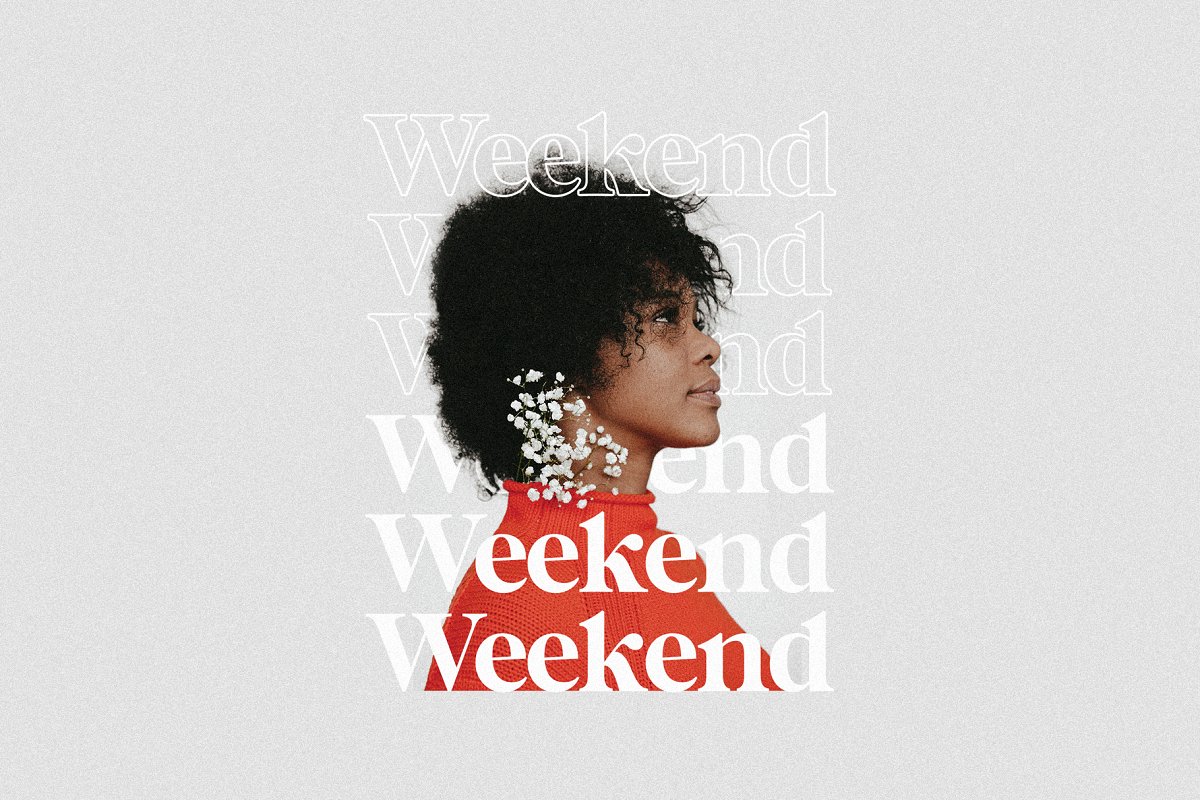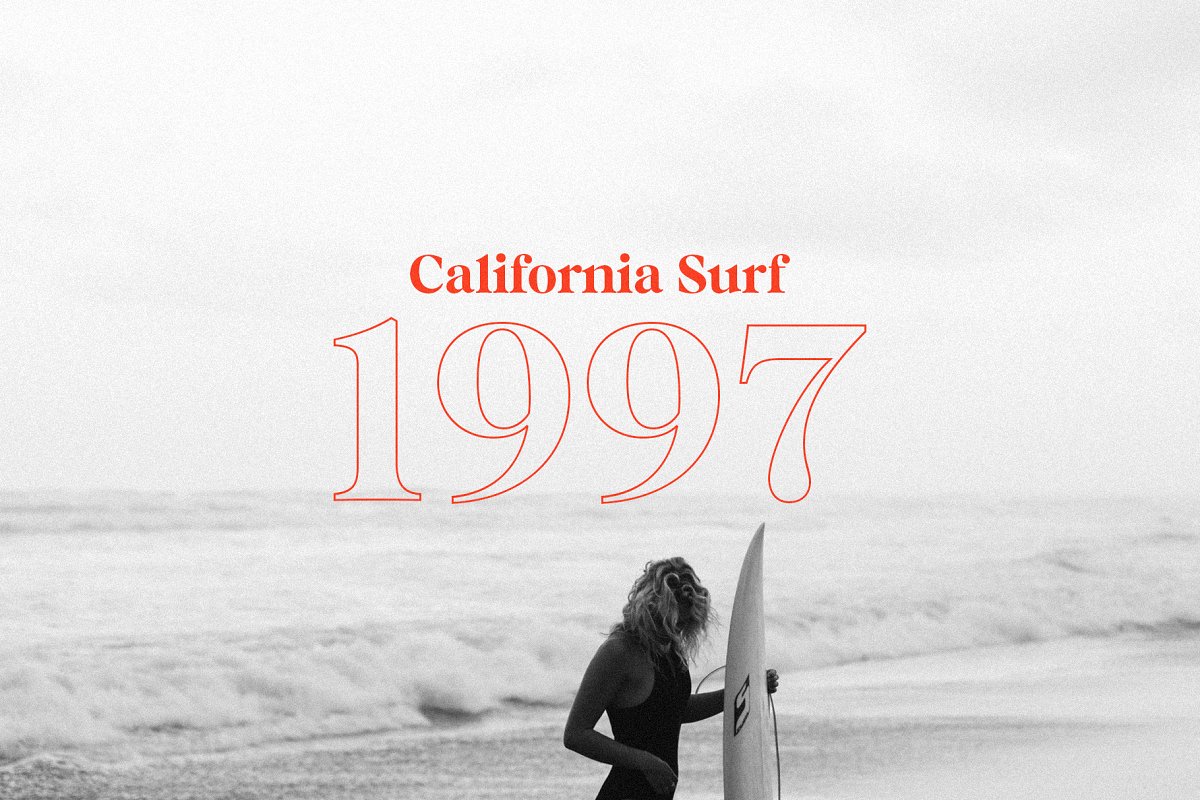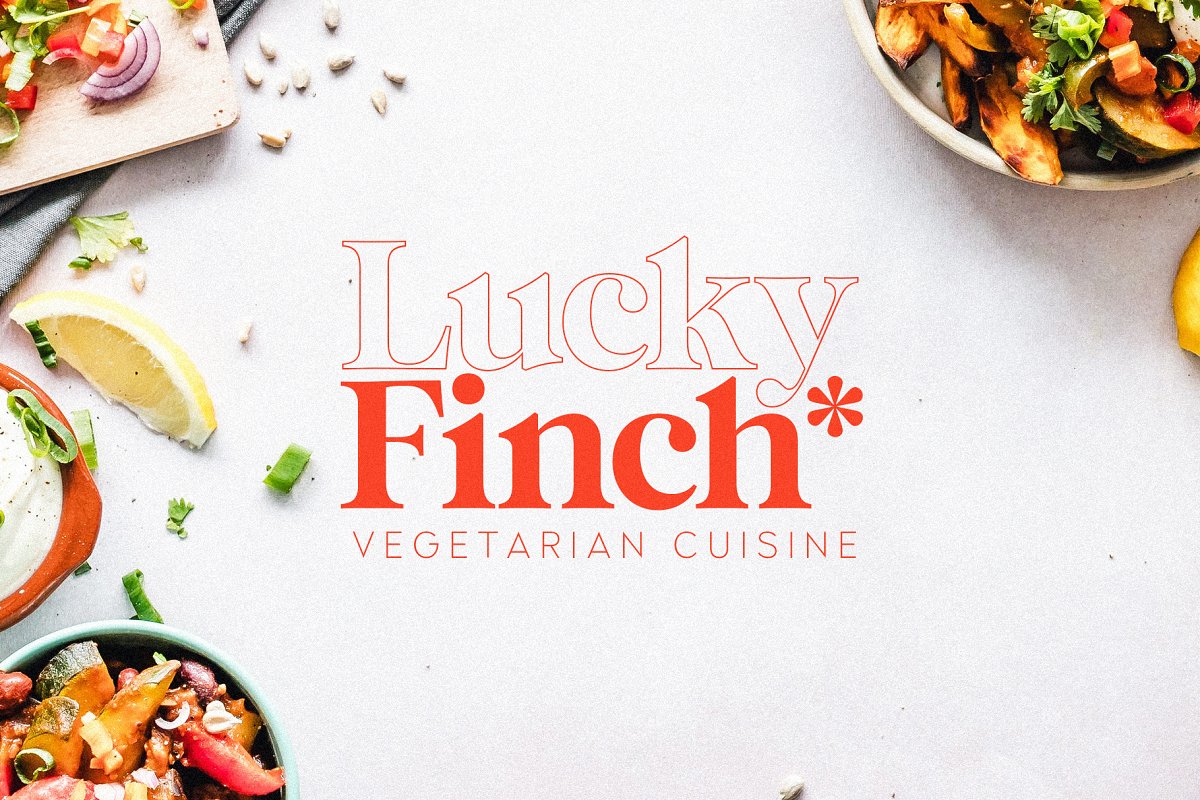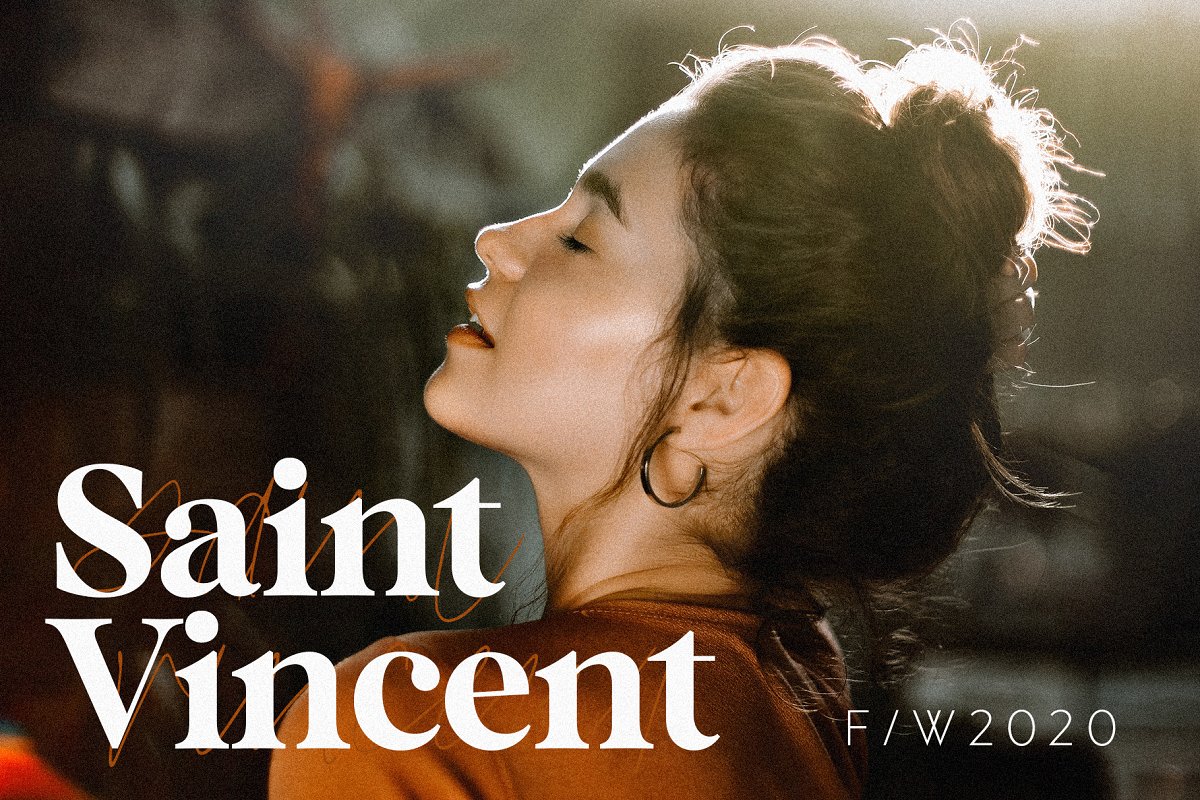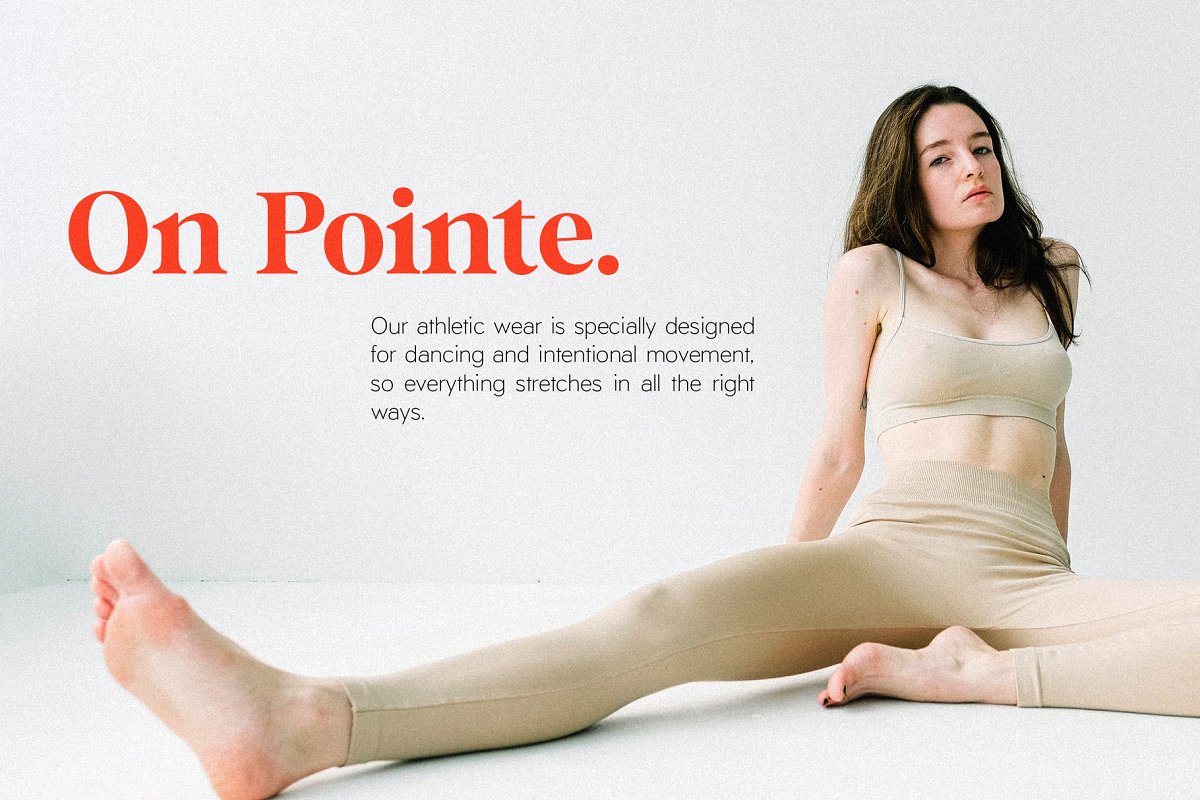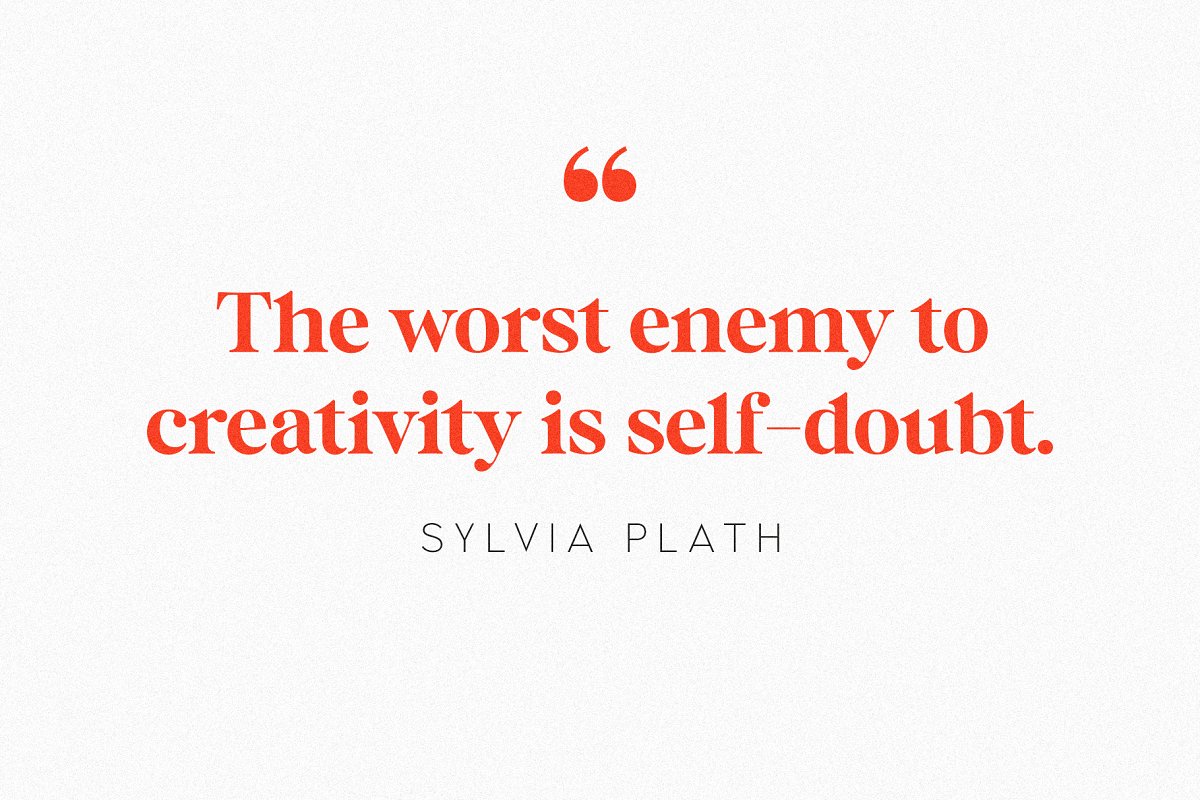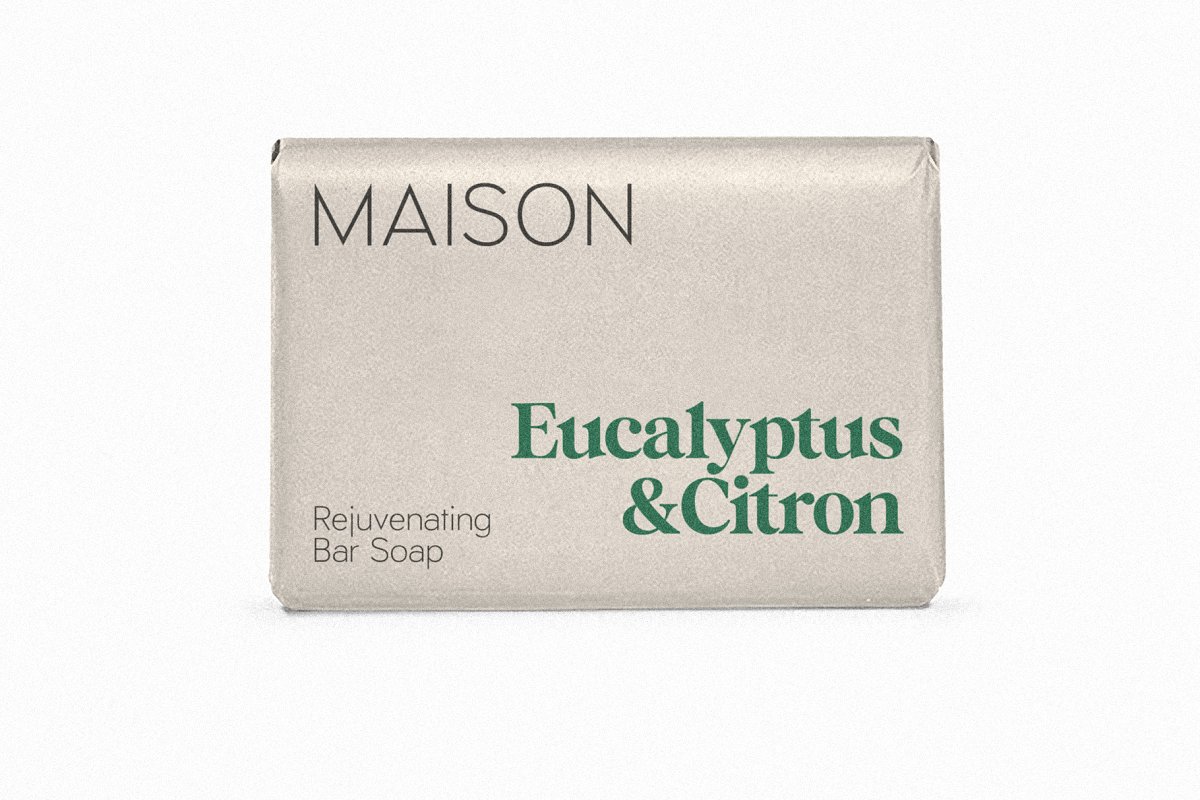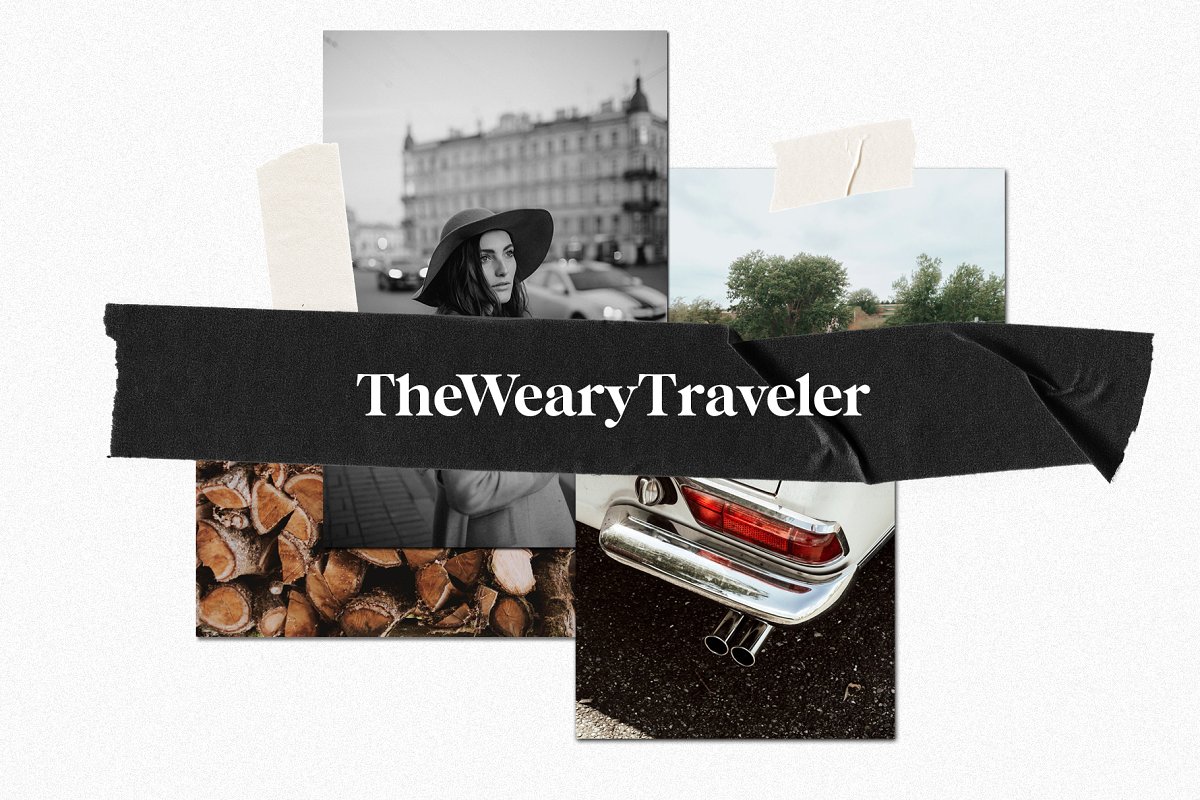
About the Bastia A modern serif bonus sans Font
For a script pairing, try Avanti – a new two-weight handwritten script that is the perfect partner for logos and headers, https://creativemarket, com/jenwagnerco/6466448-Avanti-Casual-Script-in-Bold-ThinIntroducing Bastia – a brand new serif with a bonus sans for perfect pairing! I am constantly combining sans and serifs in my design work, and wanted to create the perfect combo for you too!Bastia is a classy, bold upper and lowercase typeface that looks incredible in both large and small settings
Best used as a display for headings and logos, Bastia’s clean lines and smooth curves give any project an extra touch of class, See how it looks when used for body text in the 12th sample image above, I also love combining Bastia and Halifax for minimal logos (see the Lucky Finch sample logo – all the heart eyes!)
This download also includes a special outline version of the serif, so you can layer text or add some flair to your logos and display type, There are also alternates available for k and s that give each letter some extra curves (available via the special characters panel; see this article for help accessing them: https://www